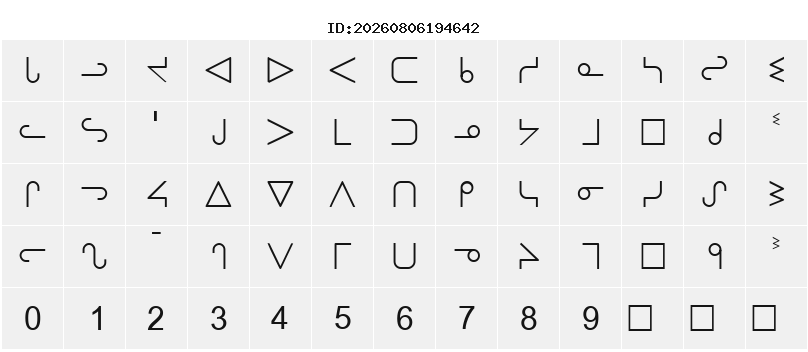
About Ojibway.ttf
Ojibway.ttf is a modern, elegant sans-serif font designed for ultimate readability and visual harmony. Perfect for branding, headlines, web design, and print materials.